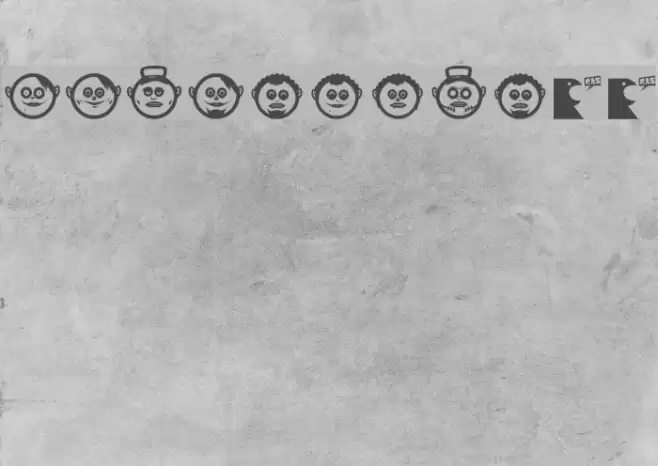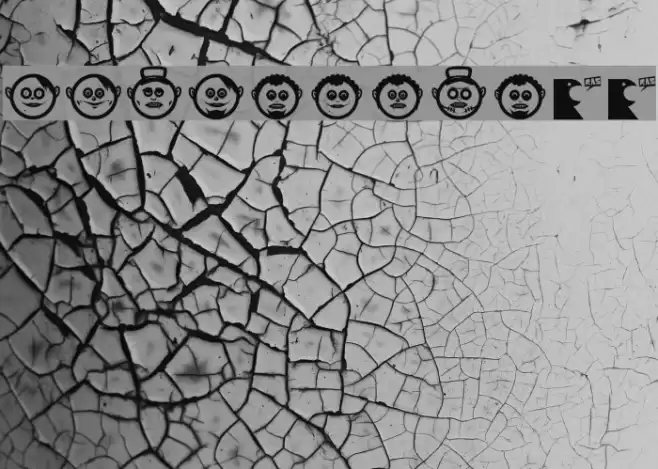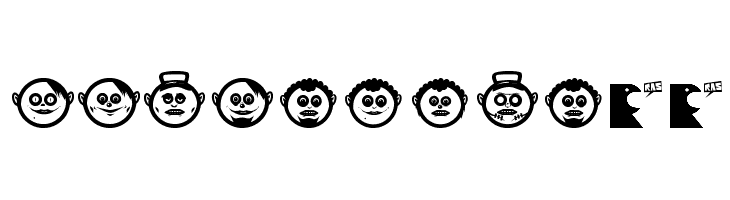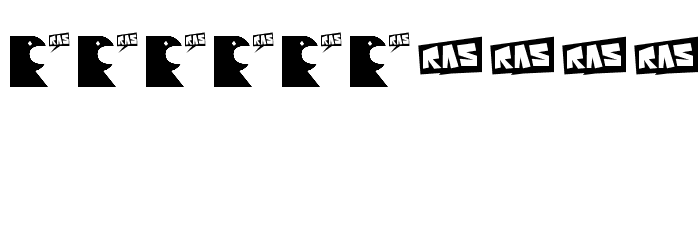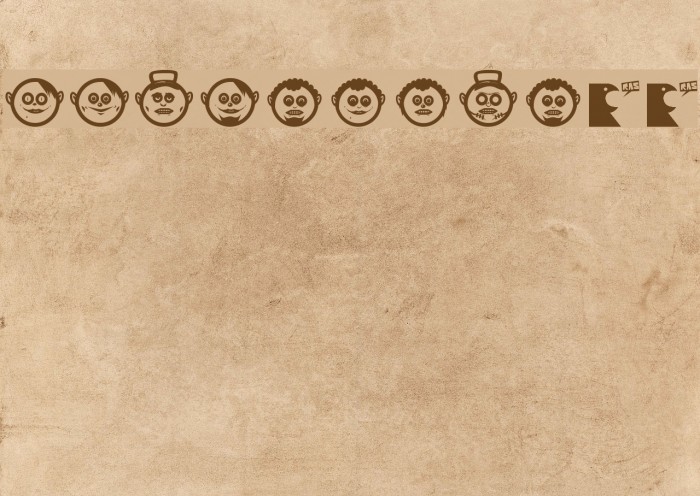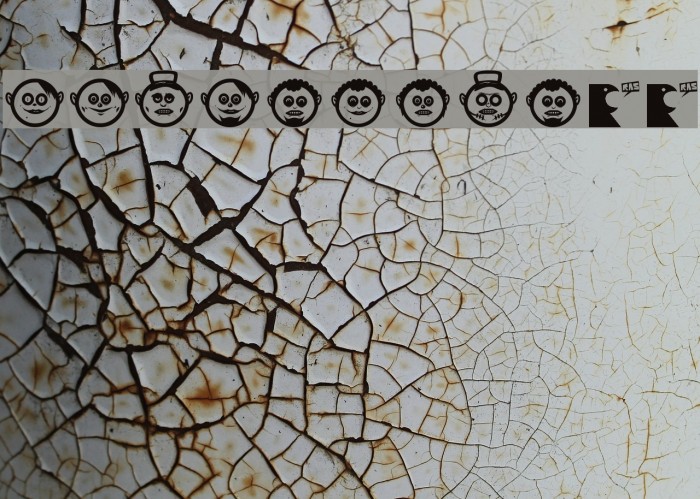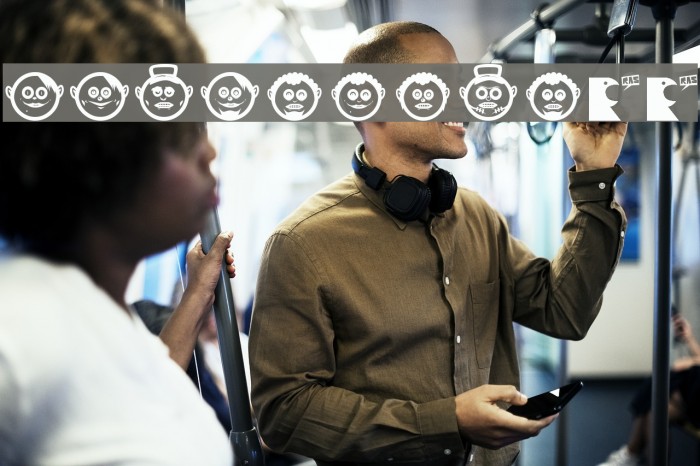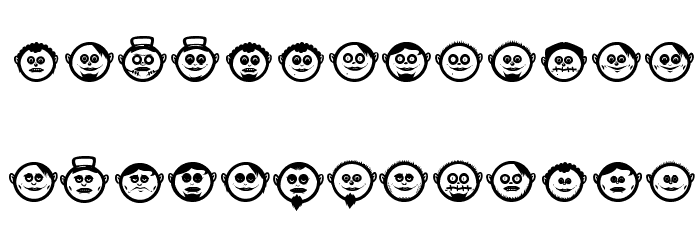
GLOBEFACE01 Font
GLOBEFACE01 Description
This is not a traditional font but rather a collection of graphic icons featuring various stylized faces. Each character is represented by a unique face design, incorporating different expressions and accessories. The designs are playful and cartoonish, with bold outlines and simple features. The icons are consistent in size and style, making them suitable for decorative purposes. The set includes a variety of facial expressions, from happy and surprised to serious and quirky, each with distinct characteristics that add personality.
A playful collection of face icons with various expressions and styles from Dingbats fonts.
- Proposed Projects: Ideal for use in graphic design projects, children's books, educational materials, or as decorative elements in digital media.
- Overall Style: Cartoonish, Playful
- Use Case: Decorative elements, Graphic design